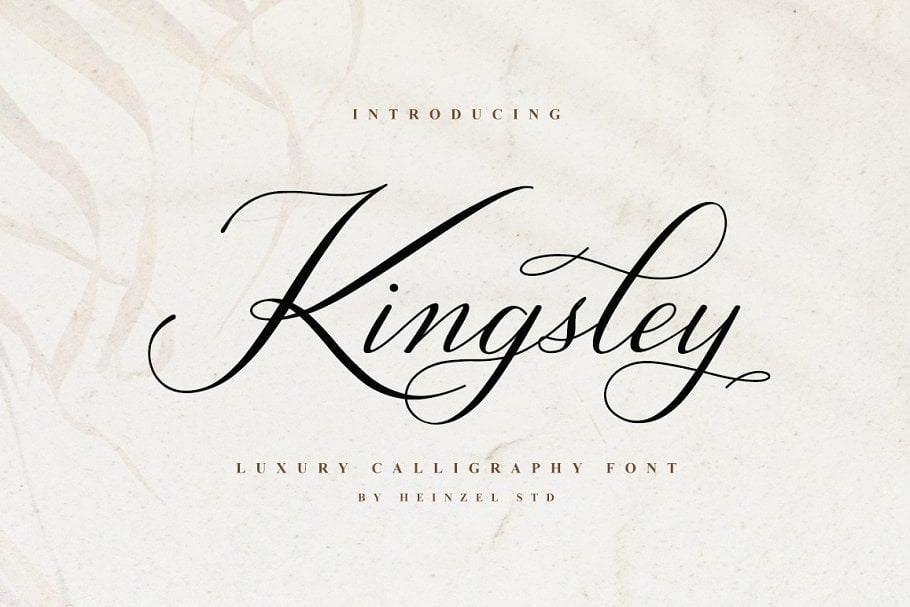
Kingsley Font
Kingsley is an elegant and flowing Calligraphy font. It is PUA encoded which means you can access all of the glyphs with ease! It features a varying baseline, smooth lines, gorgeous glyphs and stunning alternates. It maintains its classy calligraphic influences while feeling contemporary and fresh. Fall in love with this font and bring your projects to the highest levels!
Kingsley would perfect for photography, watermark, social media posts, advertisements, logos & branding, invitation, product designs, label, stationery, wedding designs, product packaging, special events or anything that need handwriting taste.
Kingsley also includes full set of uppercase and lowercase letters, multilingual symbols, numerals, punctuation and ligatures. The font has smooth wet ink texture, so would be perfect for all types of printing techniques+you can do embroidery, laser cut, gold foil etc.
Kingsley Luxury Calligraphy Font